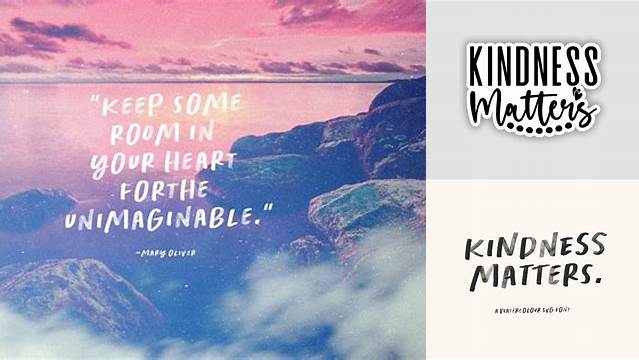
Kindness Matters Font SVG: Free Download & Uses
Hey guys! Are you on the lookout for the perfect font to add a touch of kindness and warmth to your projects? Look no further! In this comprehensive guide, we'll delve into the world of "Kindness Matters" font in SVG regular format, offering you everything you need to know about this delightful typeface and how to download it for free. We'll explore its versatility, design elements, and various applications, ensuring you make the most of this beautiful font. Let’s dive in and discover how this font can bring a special touch to your creative endeavors.
What is Kindness Matters Font SVG Regular?
When we talk about Kindness Matters font in SVG regular, we are essentially referring to a specific font style that embodies warmth, friendliness, and approachability. The SVG (Scalable Vector Graphics) format means that the font is designed using vector graphics, which ensures it can be scaled to any size without losing quality. This is crucial for various design projects, from small digital graphics to large print materials. The regular style typically signifies a medium weight, making it versatile for both headings and body text. Kindness Matters font often features rounded edges and a gentle, flowing design, which contributes to its overall welcoming feel. It is a font that speaks of empathy and connection, making it ideal for projects that aim to convey positive emotions and messages. Think of it as the visual equivalent of a warm hug – comforting, inviting, and universally appealing. Its charm lies in its simplicity and readability, ensuring that your message is not only seen but also felt. This font is more than just a collection of characters; it’s a vehicle for expressing heartfelt sentiments and fostering a sense of community.
Key Features and Design Elements
The Kindness Matters font boasts several key features and design elements that make it stand out. Firstly, its rounded terminals and soft curves create a friendly and approachable appearance. This is in contrast to fonts with sharp edges and harsh lines, which can sometimes feel cold or impersonal. The gentle curves of Kindness Matters evoke a sense of comfort and ease, making it perfect for projects aimed at creating a welcoming atmosphere. Secondly, the font typically has a moderate x-height, which refers to the height of the lowercase letters relative to the uppercase letters. A moderate x-height enhances readability, making the font suitable for both short and long texts. Thirdly, the letterforms often have a slightly condensed width, which allows for efficient use of space without sacrificing legibility. This is particularly useful in designs where space is limited, such as on business cards or in website headers. Additionally, the regular weight of the font strikes a balance between being bold enough to stand out and light enough to remain elegant. This versatility makes it a go-to choice for a wide range of applications. Finally, the SVG format ensures that the font remains crisp and clear at any size, preventing pixelation or blurring. This is crucial for maintaining a professional look across various media.
Versatility and Applications
The true beauty of the Kindness Matters font lies in its versatility. It’s like that one friend who gets along with everyone – adaptable, reliable, and always a pleasure to work with. This font can seamlessly integrate into a variety of projects, making it a valuable asset for designers, creatives, and anyone who appreciates good typography. For instance, in branding and logo design, Kindness Matters can help convey a sense of warmth and approachability, making it ideal for businesses that want to connect with their customers on a personal level. Think of a local bakery, a children’s bookstore, or a community center – these are the kinds of businesses that could greatly benefit from the friendly vibe of this font. In web design, Kindness Matters can enhance the user experience by making websites feel more inviting and easy to navigate. Its readability makes it a great choice for body text, while its unique character can add a touch of personality to headings and call-to-action buttons. For print materials, such as posters, flyers, and brochures, this font can help your message stand out in a friendly and engaging way. It’s particularly effective for announcements, invitations, and promotional materials that aim to create a positive impression. Moreover, Kindness Matters is a fantastic option for social media graphics. Its clear, legible style ensures that your posts are easily readable on small screens, while its friendly aesthetic can help your content gain traction. Whether you’re creating inspirational quotes, promotional posts, or event announcements, this font will add a touch of warmth and sincerity to your social media presence. In essence, the Kindness Matters font is a chameleon – it can adapt to any environment and enhance the overall message with its inherent friendliness and charm. It’s a font that truly lives up to its name, spreading kindness one letter at a time.